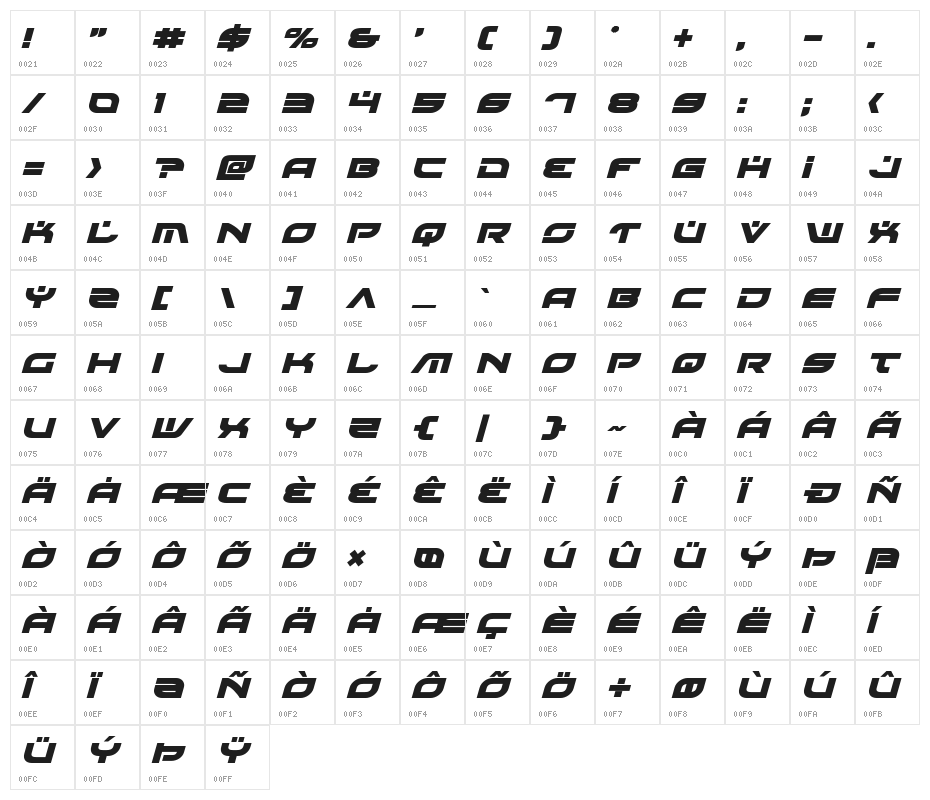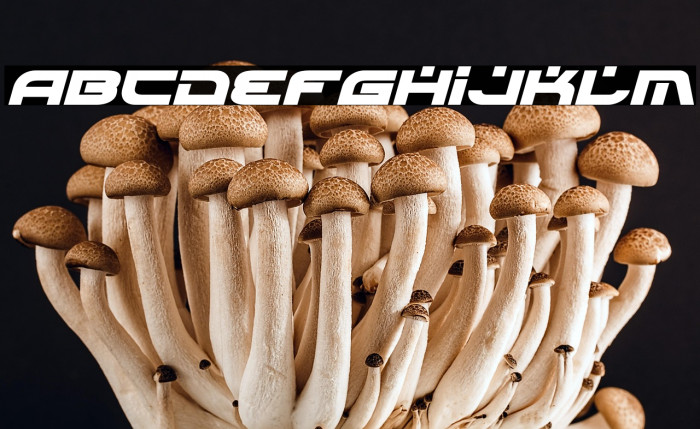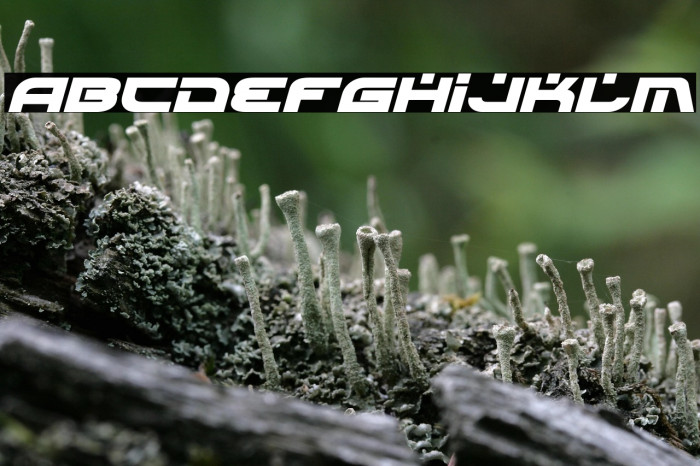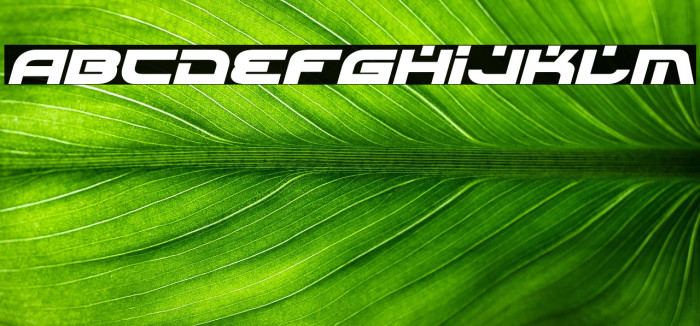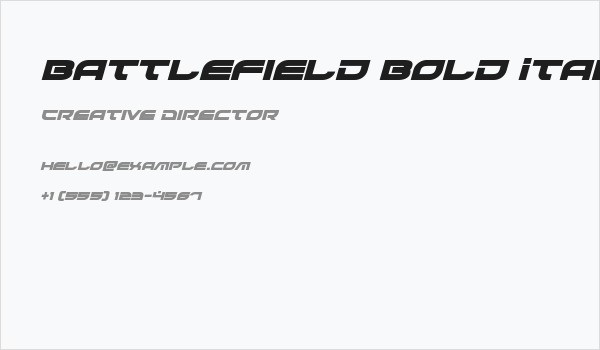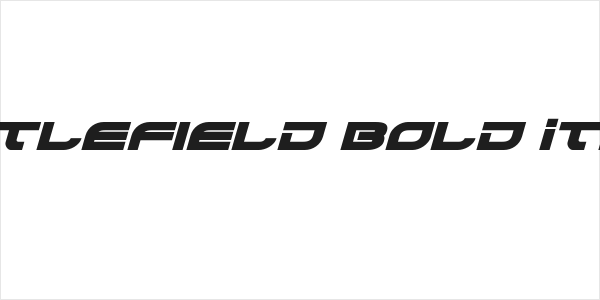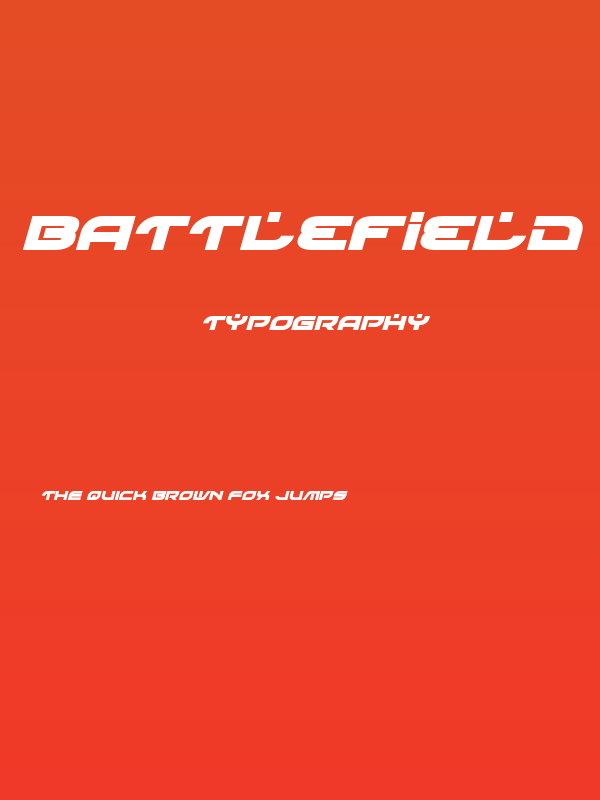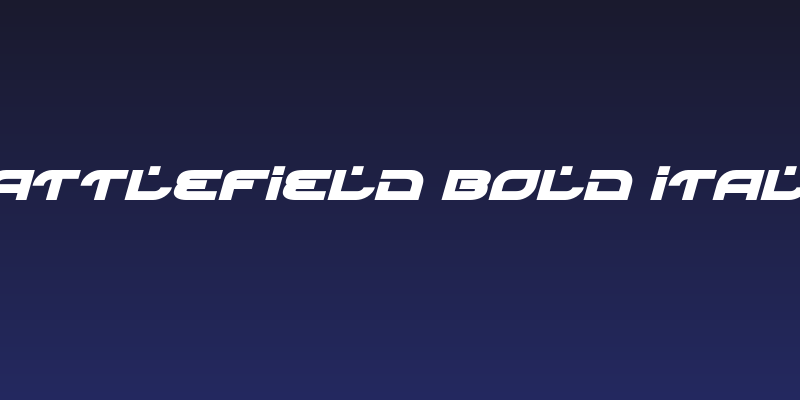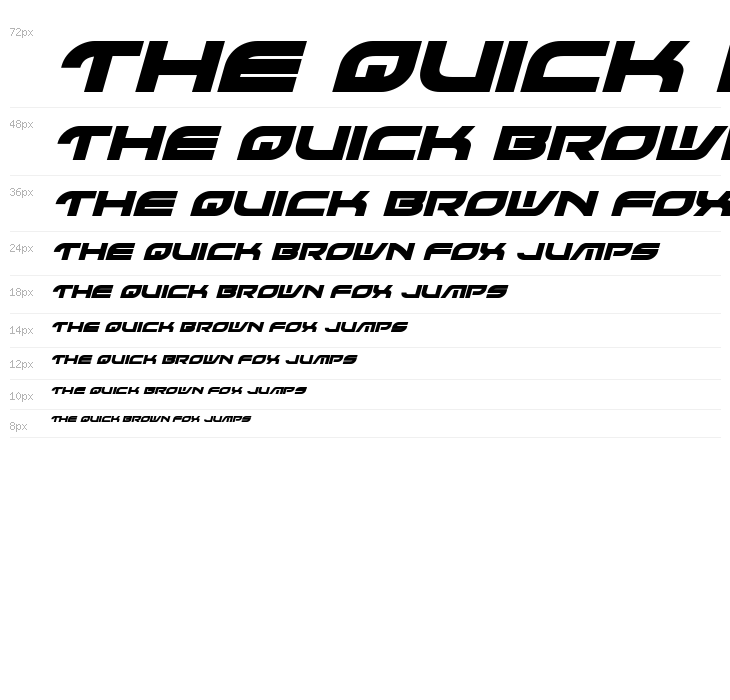
Battlefield Bold Italic Font
Battlefield Bold Italic Description
This font features a bold and italicized style with a futuristic and dynamic appearance. The characters are designed with a forward-leaning slant, giving a sense of motion and speed. The strokes are thick and consistent, providing a strong visual impact. The design incorporates sharp angles and clean lines, contributing to a modern and sleek aesthetic. The uppercase and lowercase letters maintain a uniform style, while the numerals and special characters are crafted to match the overall theme. This font is ideal for projects that require a bold statement and a contemporary look.
| Proposed Projects | Ideal for video game titles, sports branding, tech logos, and dynamic posters. |